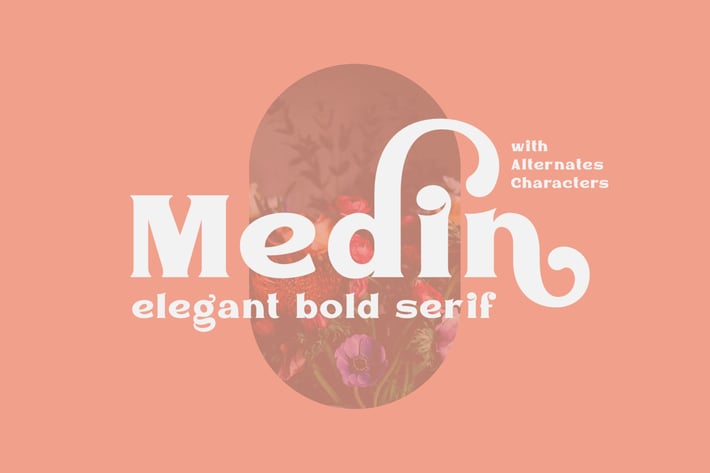
Medin - Elegant Font Serif
ViactionType
Medina is a sans serif font with elegant characters. Medina is perfect for your elegant-themed work, suitable also for elegant vintage. This font is available in two font file & alternate characters, making it easy to do work on various design themes. Medina is equipped with multilingual accents.